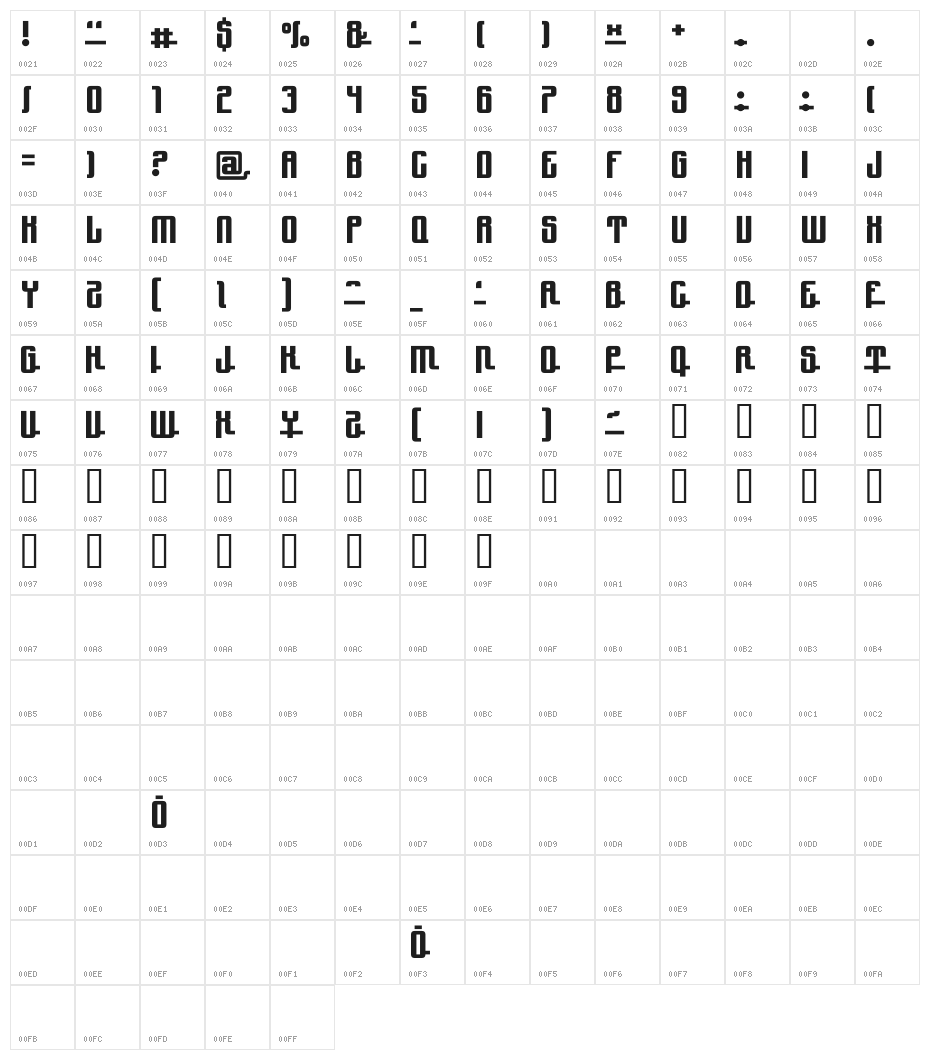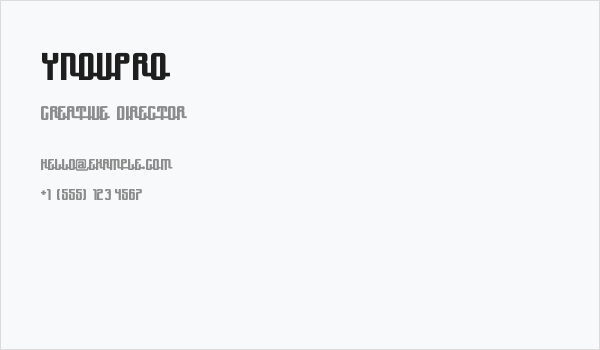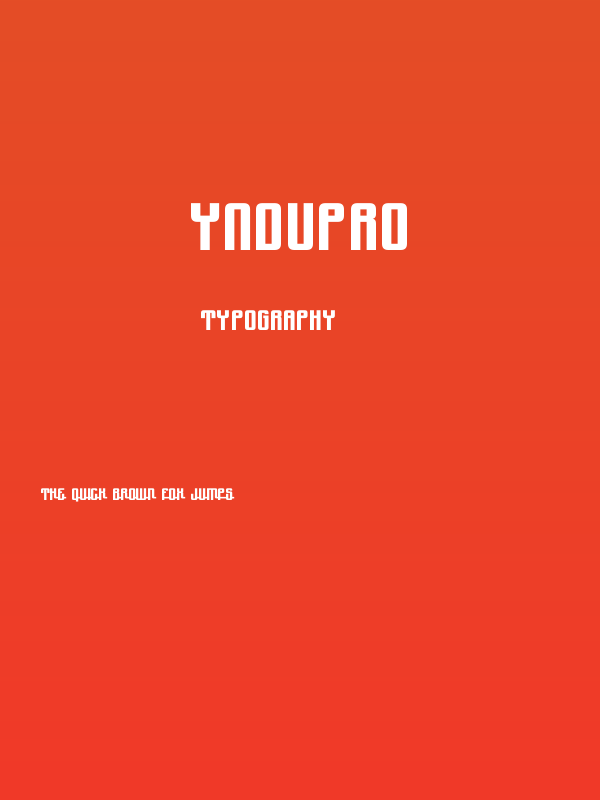
YnduPro Font
YnduPro Description
This font features a bold, geometric design with a distinctly modern and industrial aesthetic. The characters are constructed with thick, uniform strokes and have a block-like appearance, creating a strong visual impact. The uppercase letters are particularly striking, with a consistent height and width that contribute to a cohesive look. The lowercase letters maintain the same boldness, ensuring readability while retaining the font's unique style. Numbers and special characters are designed to match the overall aesthetic, making them suitable for various applications. The font's design is both functional and decorative, making it versatile for different uses.
| Proposed Projects | Ideal for branding, posters, headlines, and any project requiring a strong, modern aesthetic. |